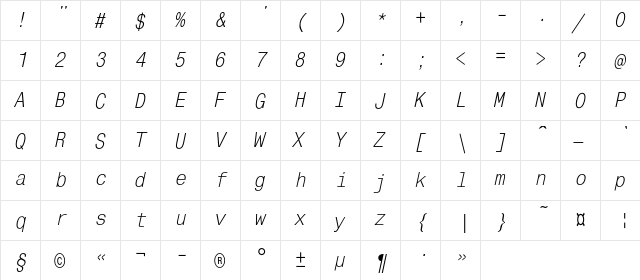
MonoCondensedC Italic
Design Context for MonoCondensedC Typeface
MonoCondensedC uses fixed-width spacing throughout, giving it the structured, systematic character associated with coding environments and technical documentation. Its italic angle brings a sense of urgency and motion to the letterforms.